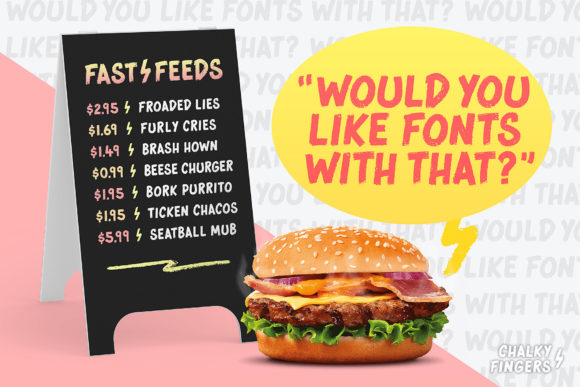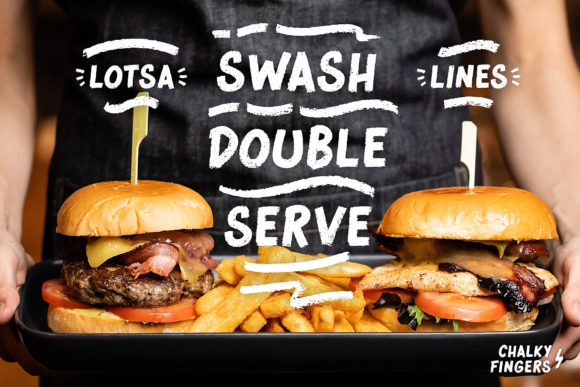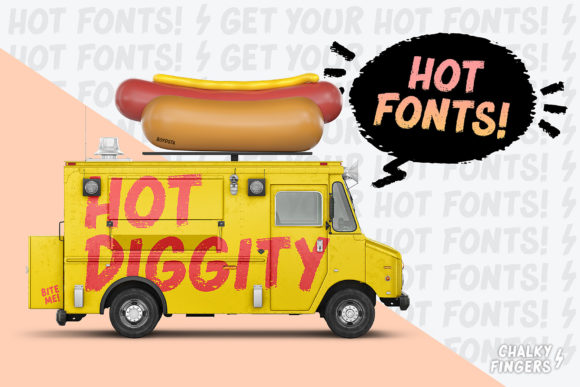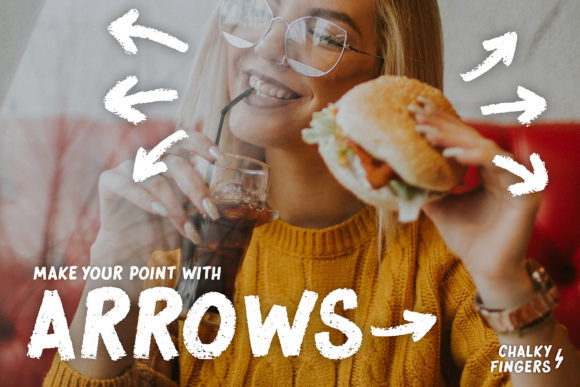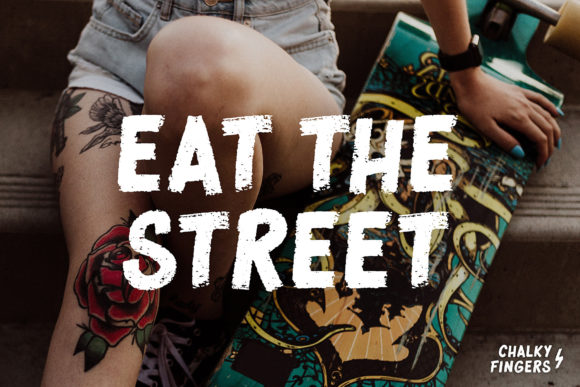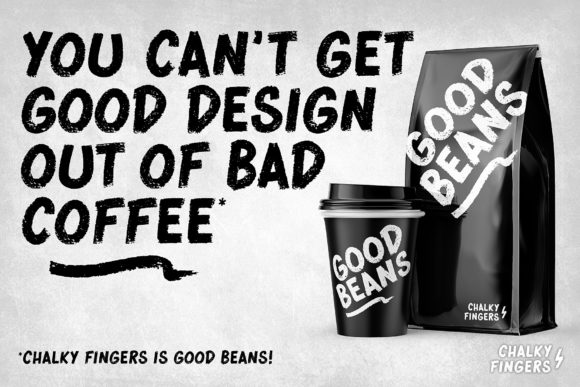
Introduction to Chalky Fingers Font
Remember the moment when you were brainstorming ideas for a creative project and suddenly, a spark of inspiration hit you? It’s that feeling when everything falls into place, and you can visualize the final result. For designers, finding the perfect font can be the key to unlocking that creative magic. That’s where Chalky Fingers Font comes in – a bold and eye-catching display font that has the potential to elevate any creation.
With its high-quality design and transparent background, Chalky Fingers Font is an invaluable resource for designers looking to add a touch of sophistication to their work. Whether you’re working on a branding project, creating a social media graphic, or designing a poster, this font is sure to make a lasting impression. And the best part? It’s available for free download, making it an essential addition to any design library.
Key Features of Chalky Fingers Font
- High-quality, hand-drawn design perfect for creative projects and designs.
- Comes with a transparent background, ideal for layering and customizing in design software.
- Unique characteristics include expressive, hand-drawn lines and subtle texture, adding a personal touch to designs.
- Perfect for designers seeking a creative, high-quality font to elevate their projects and designs.
Honest Review: Chalky Fingers Font
I recently stumbled upon the Chalky Fingers Font, and I must say it’s been a game-changer for my creative projects. The font is a high-quality, hand-drawn design that’s perfect for adding a personal touch to your work.
What works well is the transparent background, which allows for seamless integration with any design element. The font itself is incredibly versatile and can be used for a wide range of creative projects, from graphic design to web development.
Here are some of the key features that I love about the Chalky Fingers Font:
- ✨ High-quality design that’s perfect for professional projects
- ⚠️ Limited font styles available (although the designer has promised to add more)
- ⚠️ May not be suitable for projects that require a bold, sans-serif font
Overall, I’m thoroughly impressed with the Chalky Fingers Font. It’s a valuable addition to any designer’s toolkit and a must-have for anyone working on creative projects.
The Chalky Fingers Font is a high-quality, unique design resource perfect for creative projects that require a touch of whimsy. With its transparent background, this font is ideal for overlaying text onto images or using as a standalone element.
To get the most out of the Chalky Fingers Font, experiment with different font sizes, colors, and layering techniques to achieve the desired look for your project.
The Chalky Fingers Font is commonly used for creative projects such as wedding invitations, social media graphics, and children’s book illustrations.